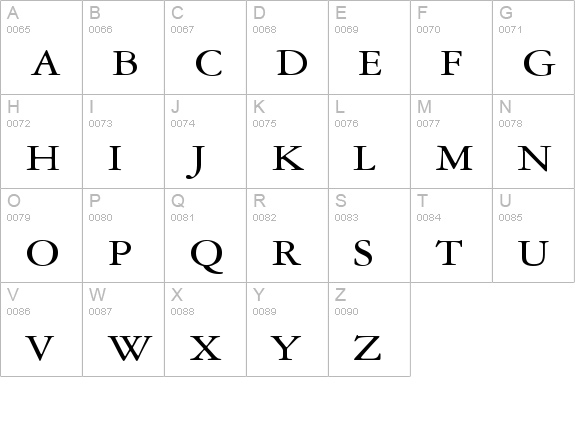
Amery Wide Normal is the standard, neutral, extended-width variant in the Amery typeface family \xE2\x80\x94 well suited to general body text, paragraphs, and standard typographic work.
Amery Wide Normal is a versatile and modern typeface that offers a perfect balance between professionalism and creativity. With its wide letterforms and clean lines, this font is ideal for a wide range of design projects, from branding to editorial design. The generous spacing and legibility make it easy to read in both print and digital formats. One of the best features of Amery Wide Normal is that it is available for free download at FontsMarket.com. This means that you can easily access this high-quality font without any cost, making it a valuable addition to your font collection. Whether you are a designer looking for a fresh and contemporary typeface or a business owner wanting to enhance your brand presence, Amery Wide Normal is a fantastic choice that won't break the bank.